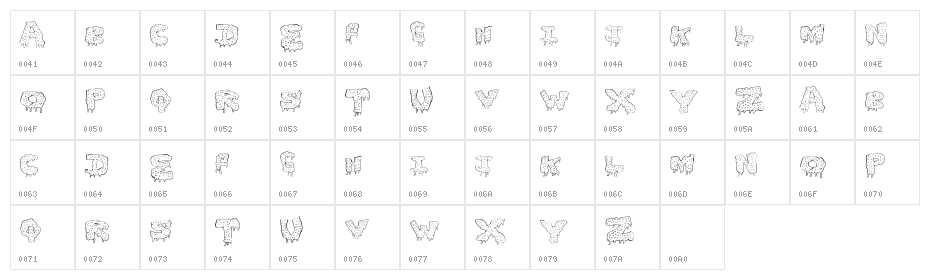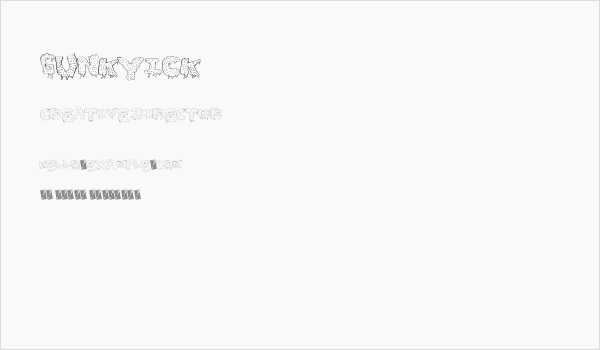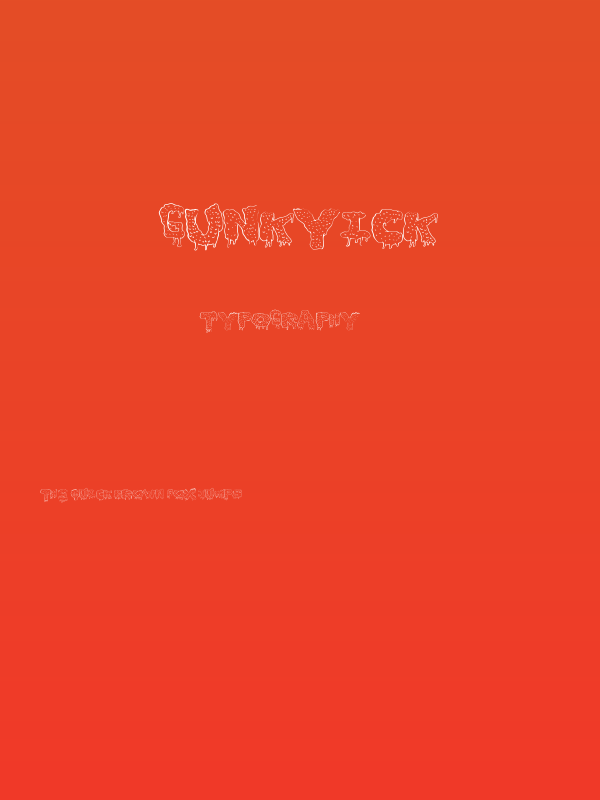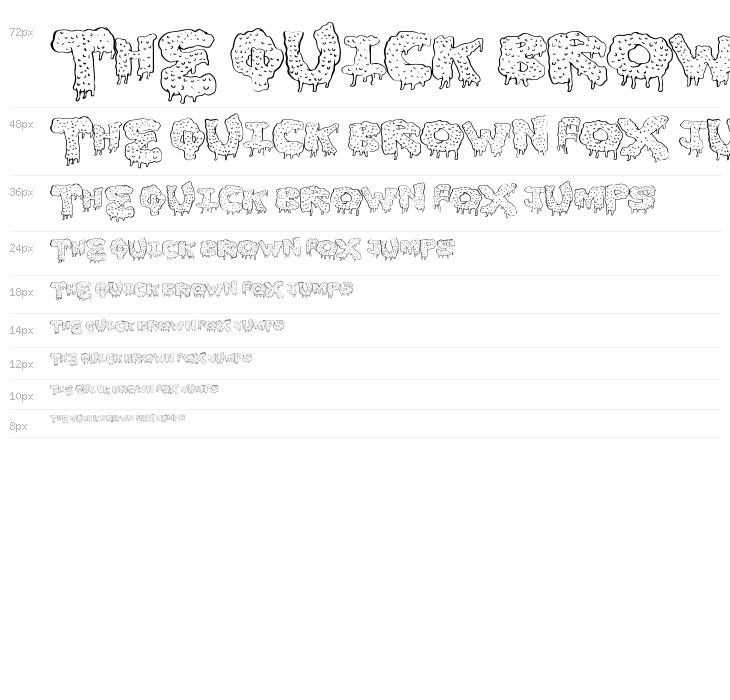
GunkyIck Font
| Anwendungsfall | Headlines, Posters, Creative Designs |
| Vorgeschlagene Projekte | Ideal for Halloween-themed designs, children's book covers, party invitations, or any project requiring a fun and quirky aesthetic. |